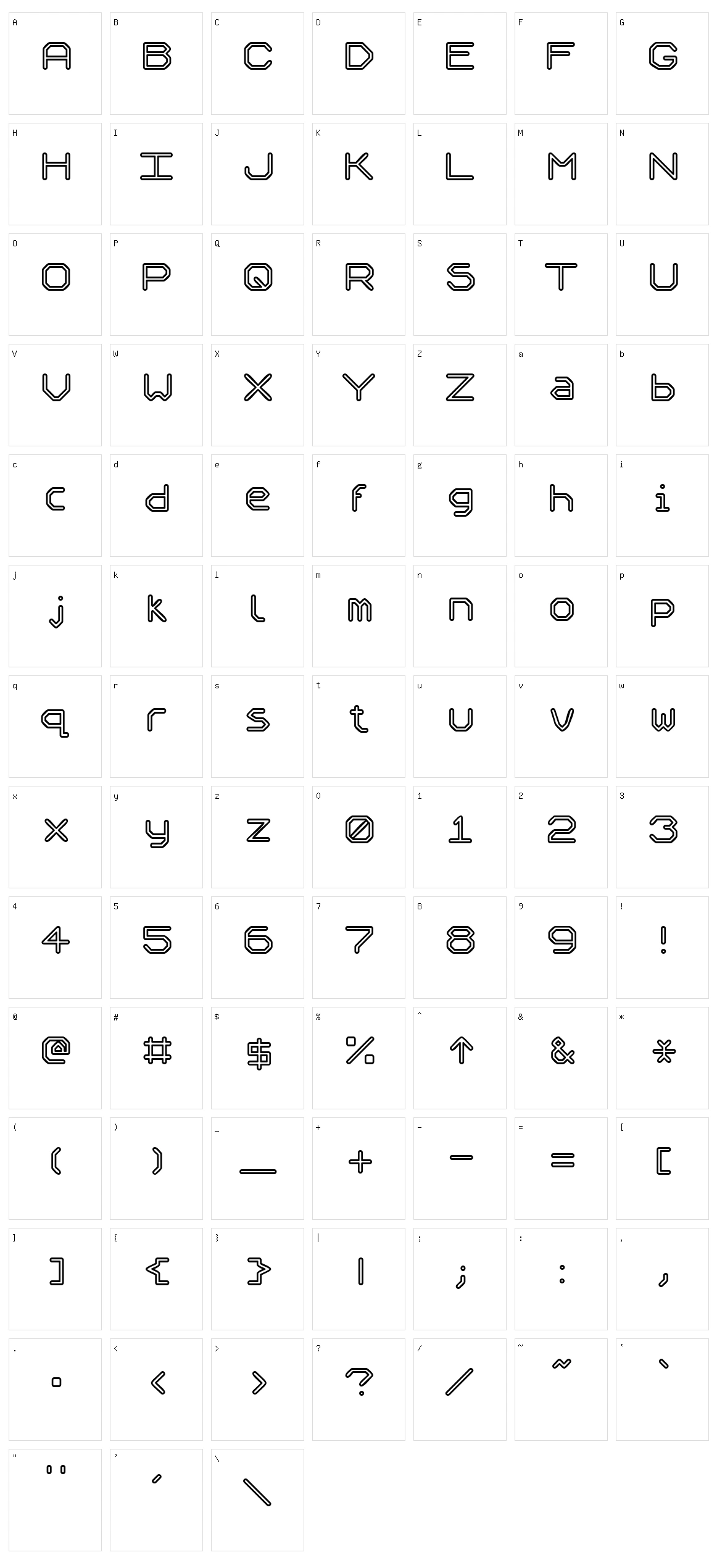
The free font Speculum is carefully designed by D. Keith, showcasing a thoughtful balance of creativity and usability and falls under the Fixed width font style. When you download the ZIP file, it contains only 25.11 KB of font files, making it lightweight and quick to download. Please review the license details below to understand permitted usage and distribution rights. If license information is not available, we recommend using this font for personal projects only or contacting the author directly for commercial usage permissions.